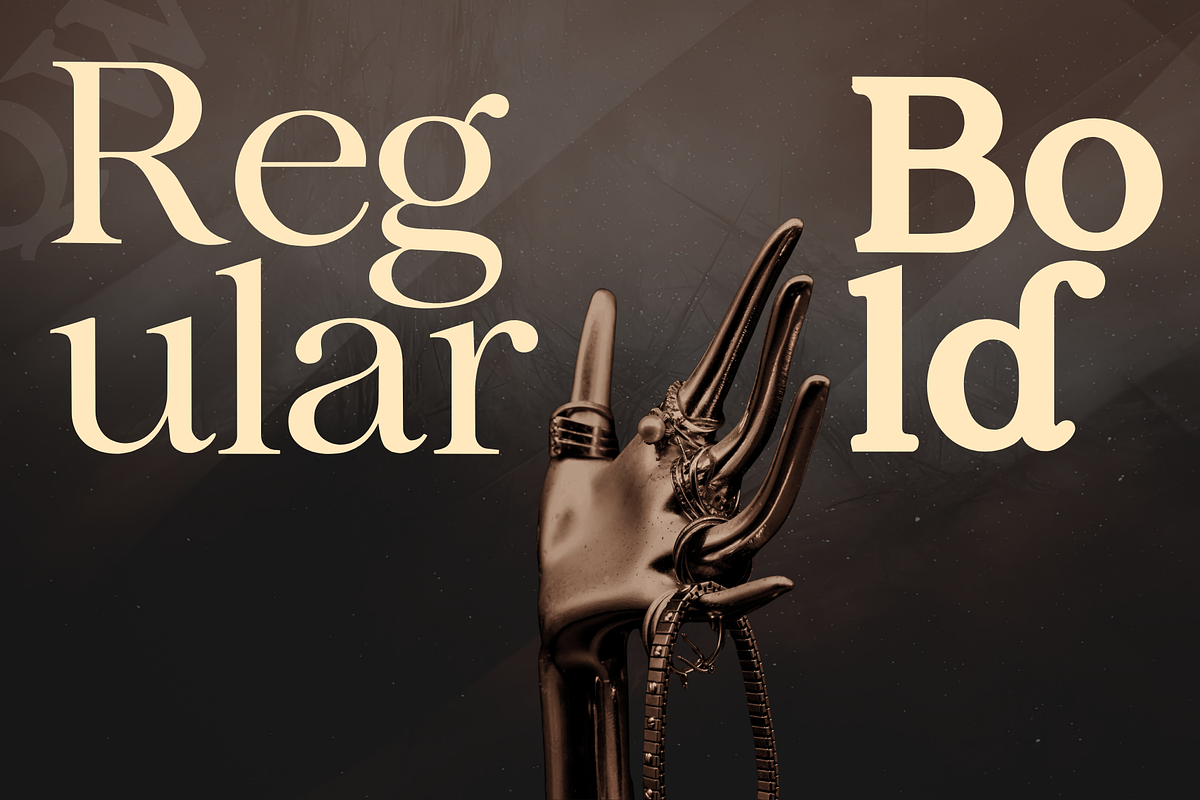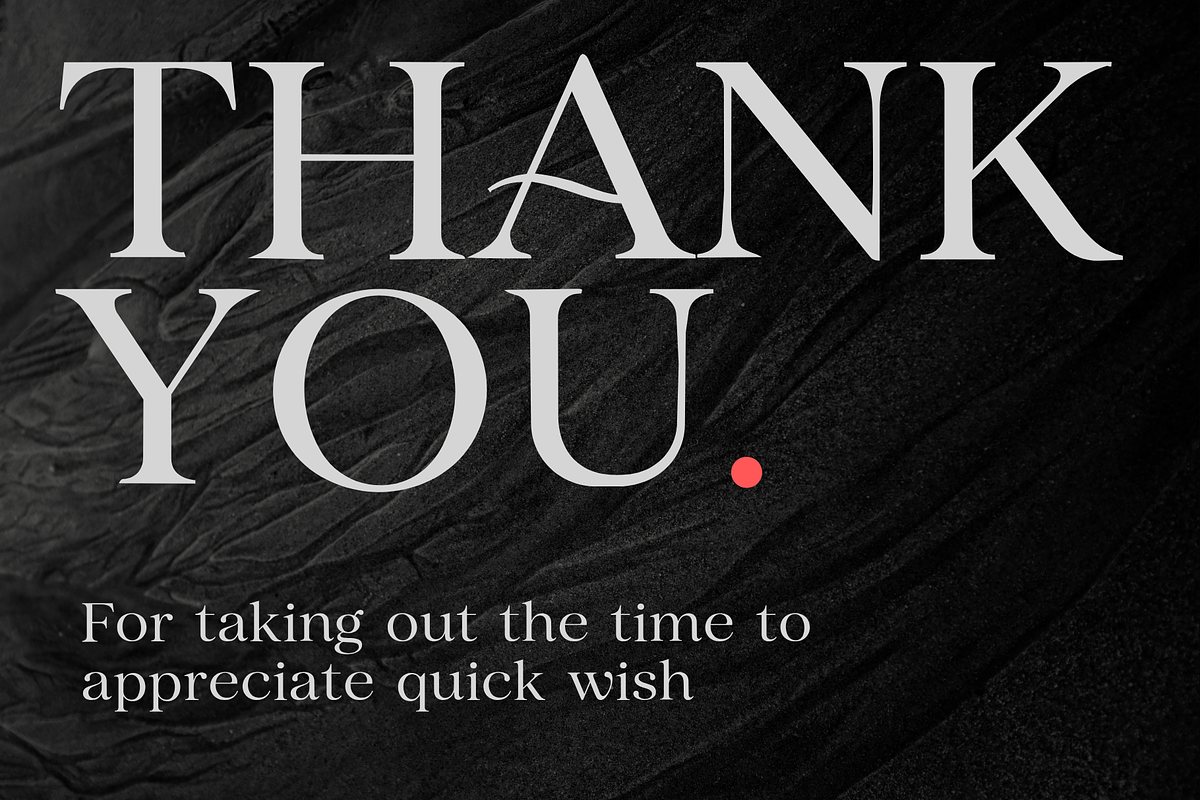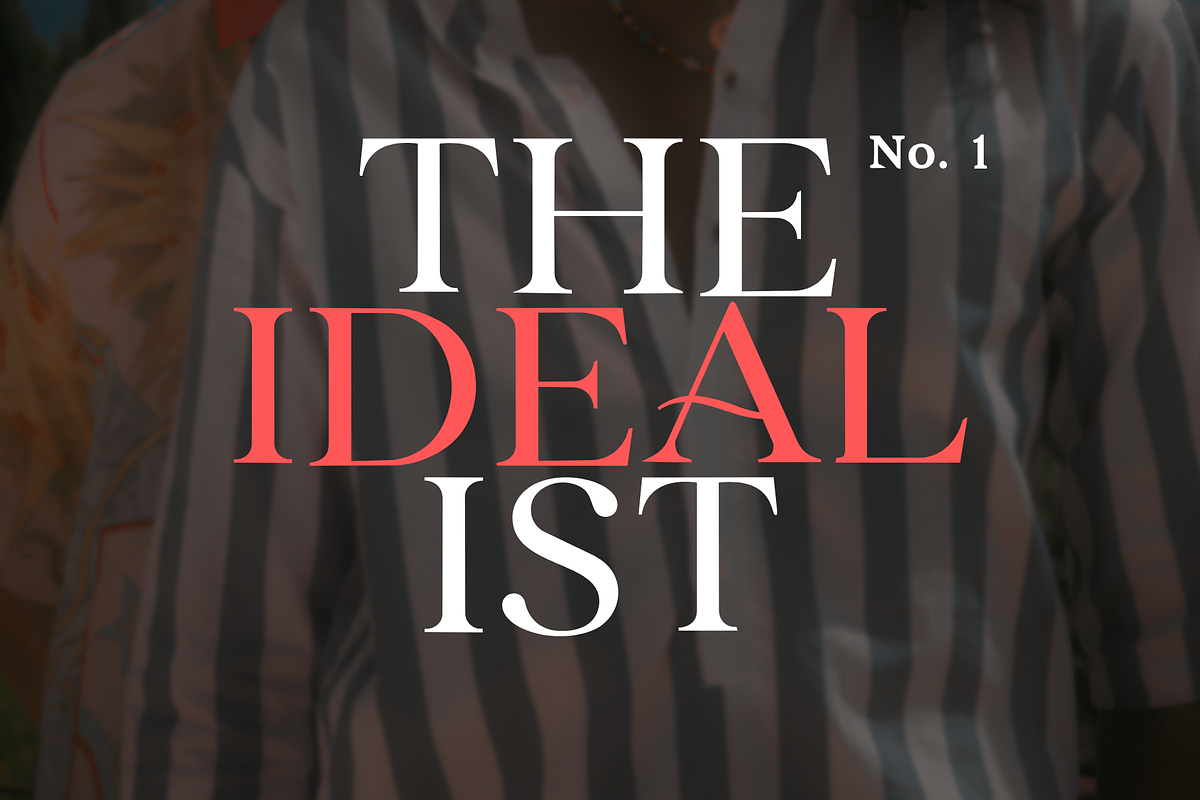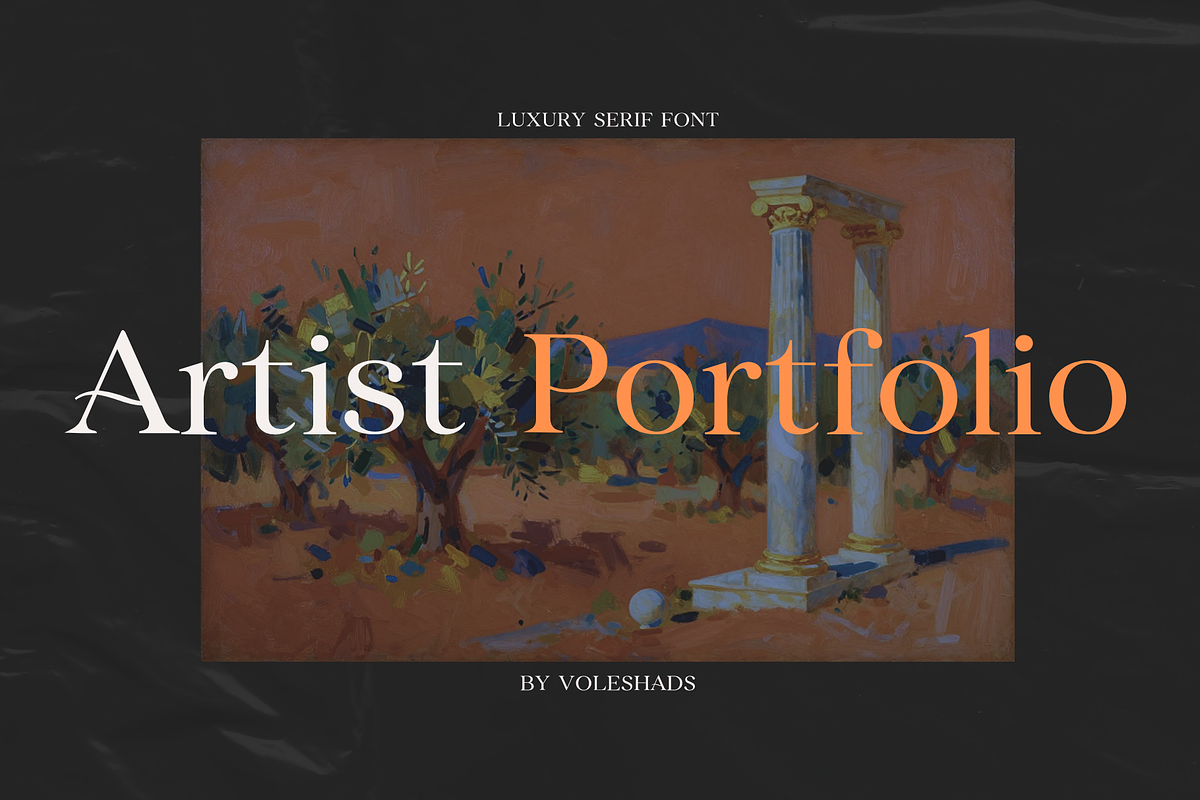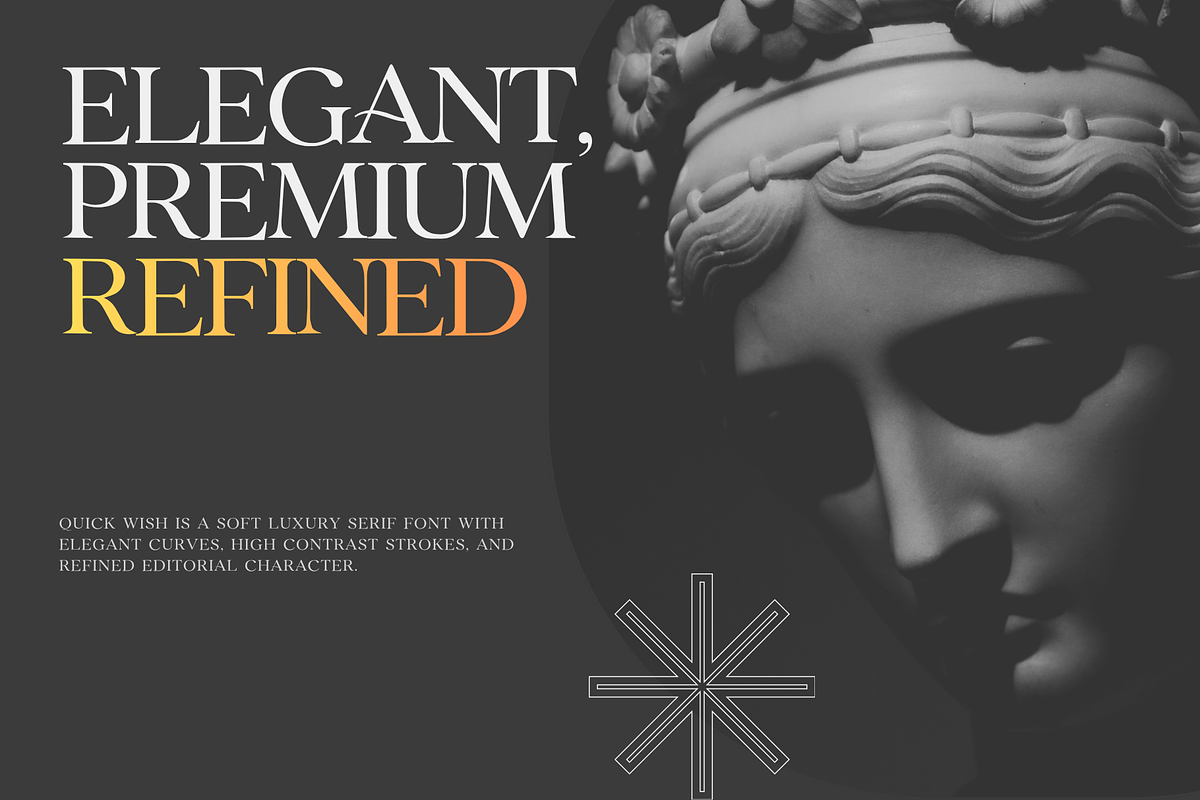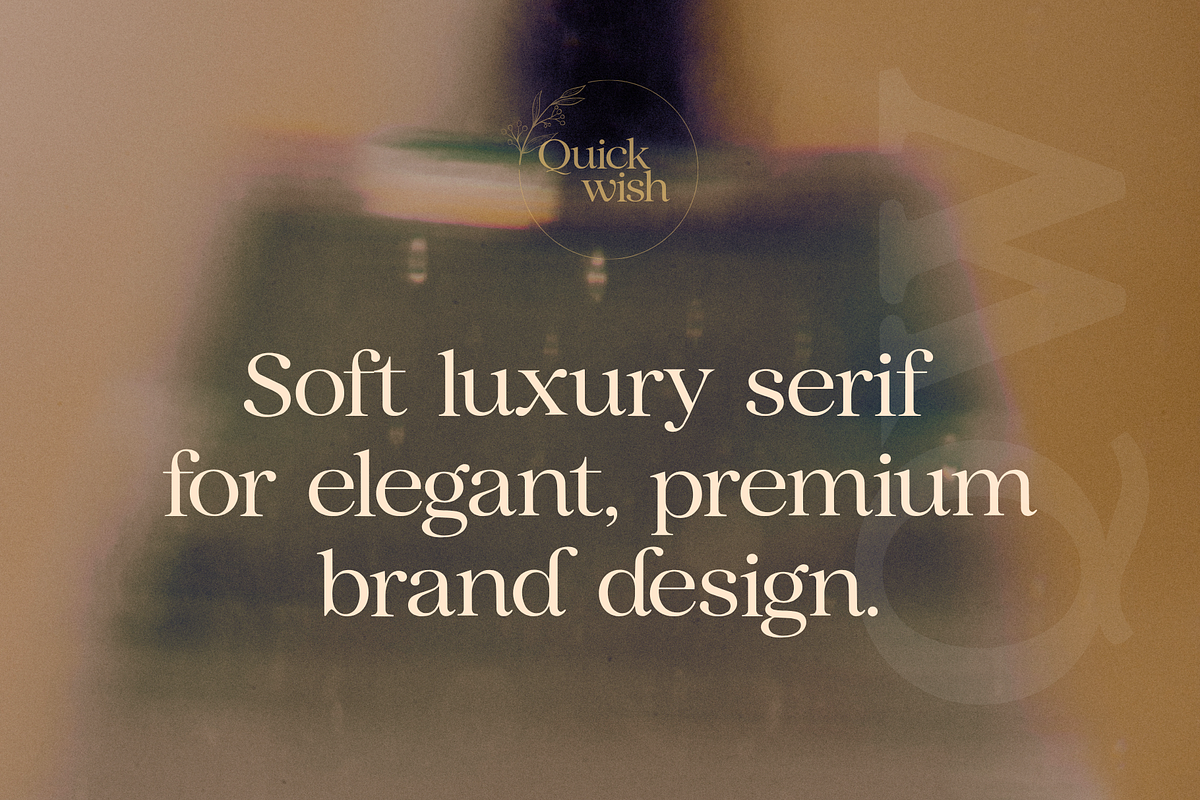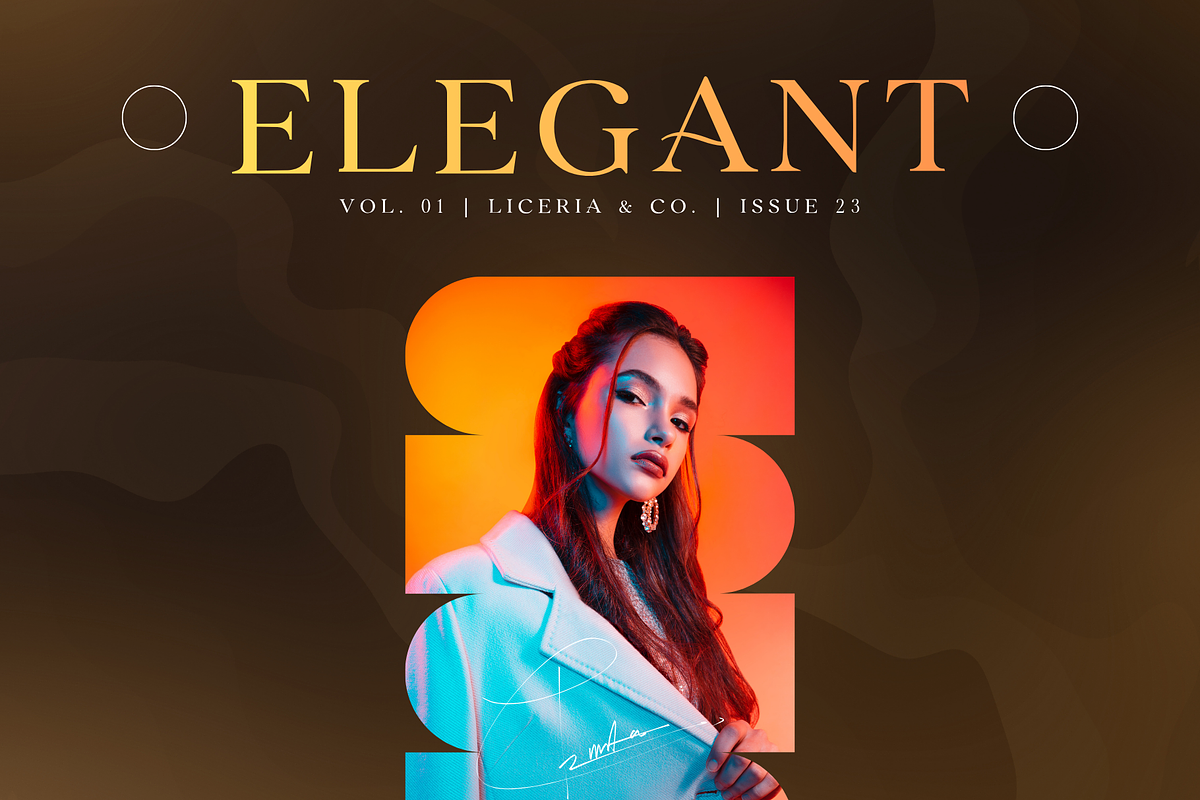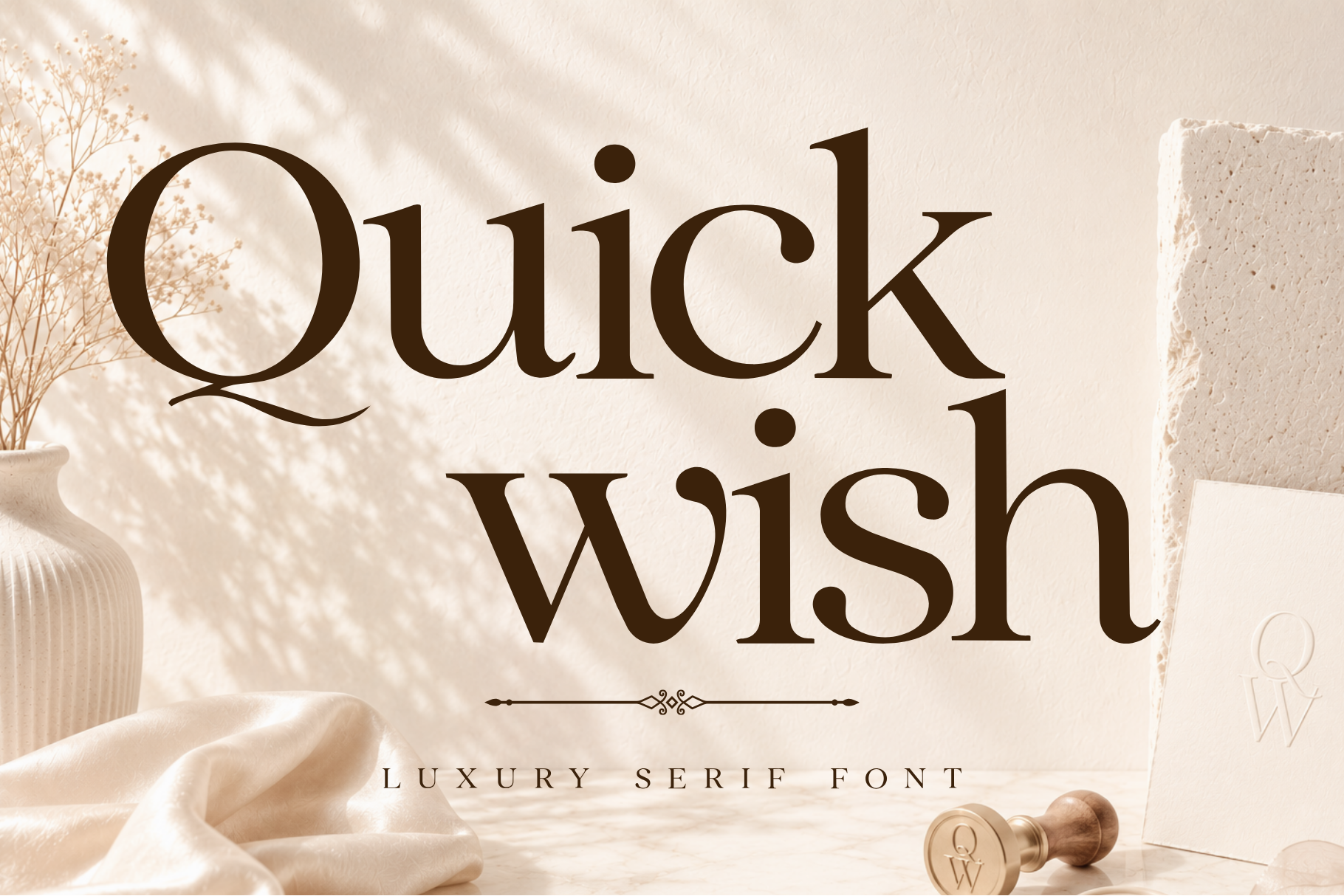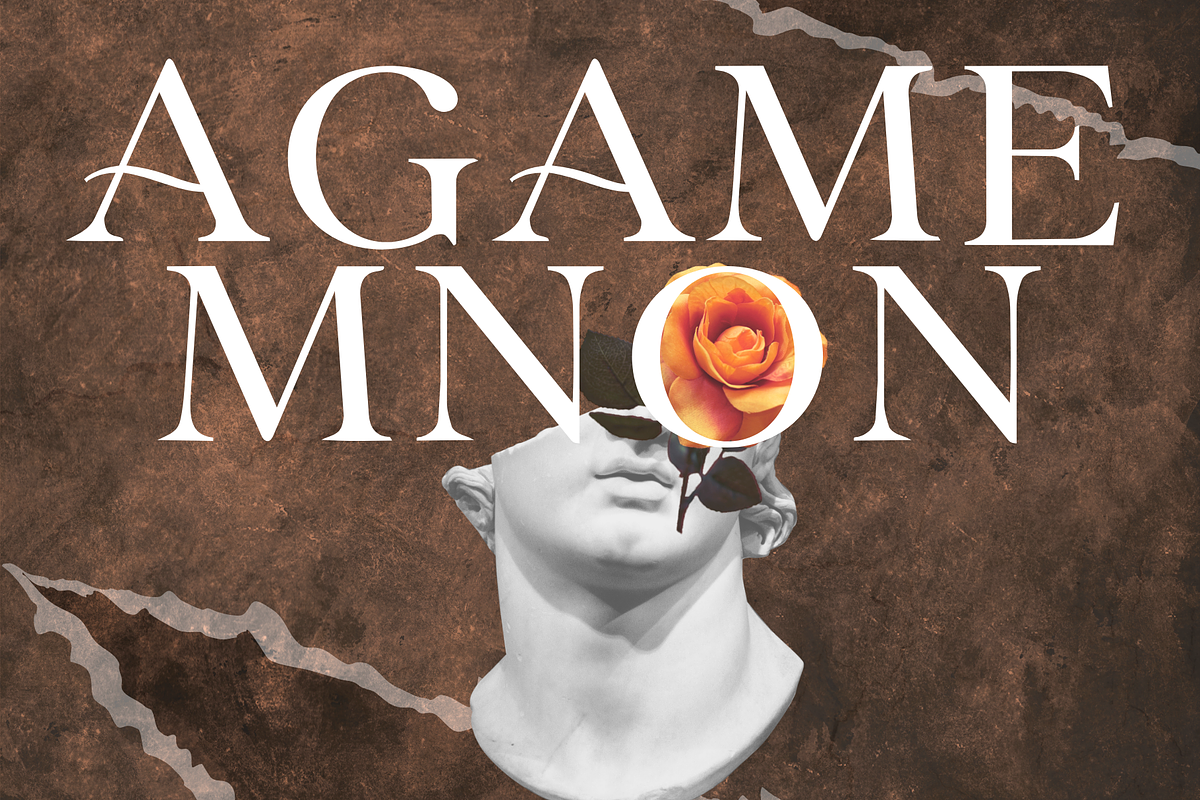
Quick Wish Luxury Serif Font
Quick Wish is a soft, elegant serif font made for designs that need a refined and premium feel. It has graceful curves, high contrast strokes, and a polished editorial look that works beautifully for branding, packaging, logos, invitations, quotes, magazine layouts, and social media designs.
I created this font with a luxury and fashion-inspired style in mind, so it works best for projects where typography needs to feel beautiful, classy, and memorable.
Quick Wish is perfect for logo design, beauty branding, fashion branding, perfume packaging, product labels, wedding invitations, editorial layouts, magazine headlines, quote designs, social media graphics, business cards, boutique branding, and premium packaging.
Quick Wish is best used as a display font for headings, logos, short titles, and brand names. For a more elegant look, try adding a little letter spacing, especially when using uppercase text.